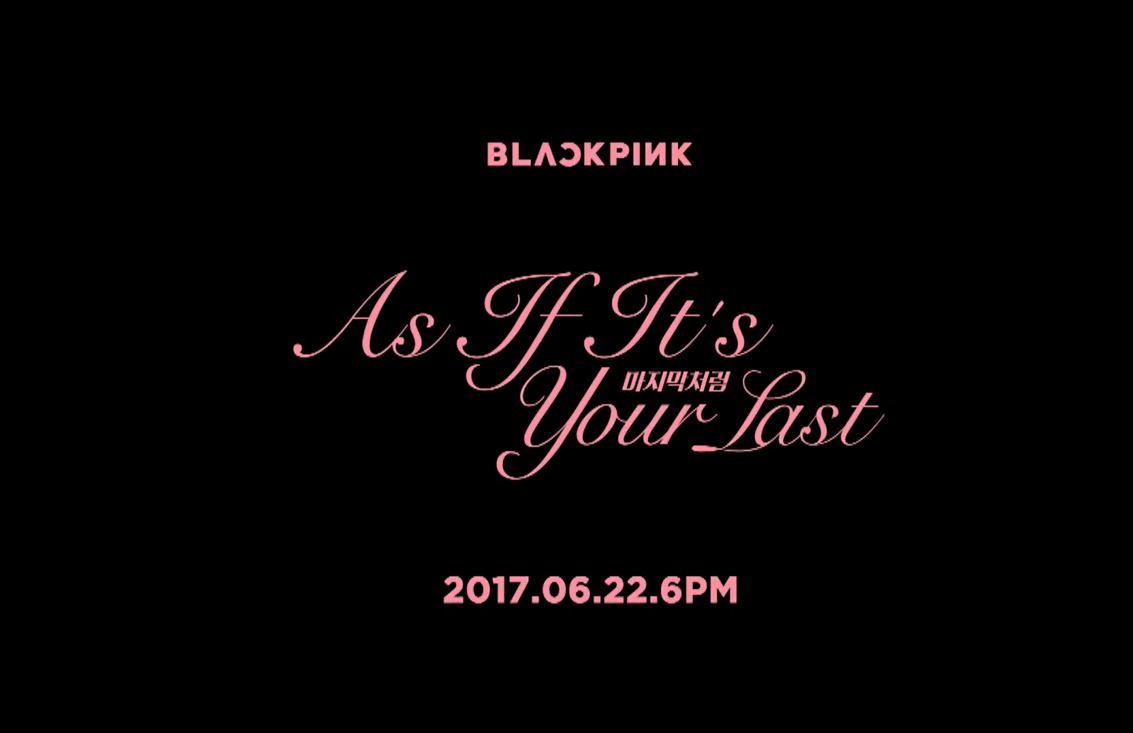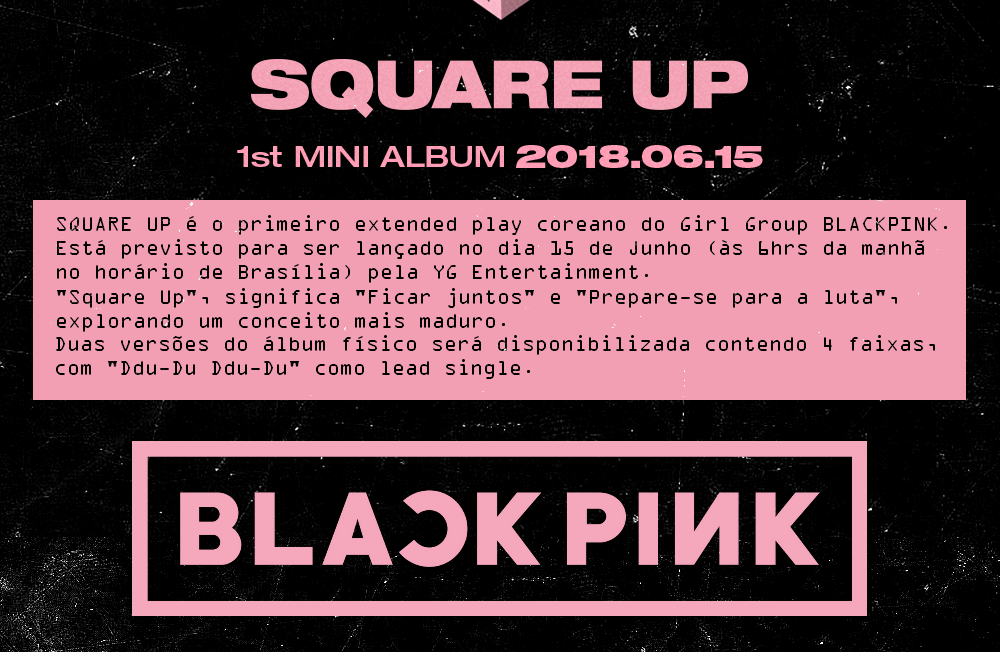
Blackpink Font Dafont. Didot font is a member of the serif typeface family that was designed by the great french printer and type designer firmin didot. This film series now has 6 films in total.
Aw conqueror didot suggested by heron2001 lightly sailler suggested by dadadafont #2. On august 9, blackpink debuted with square one single, with whistle singing their first single on the korean charts. Oct 01, 2020 at 01:20.
30082020 blackpink ice cream font. On august 9, blackpink debuted with square one single, with whistle singing their first single on the korean charts. Blackpink font is a logo font that we have seen in the blackpink title.
It was created by disnerytone studios. Aug 22, 2021 at 20:18. The font setting the album title above is probably some version of helvetica font, and the font used for their logo is very similar to a geometric sans serif named primetime by hypefonts.